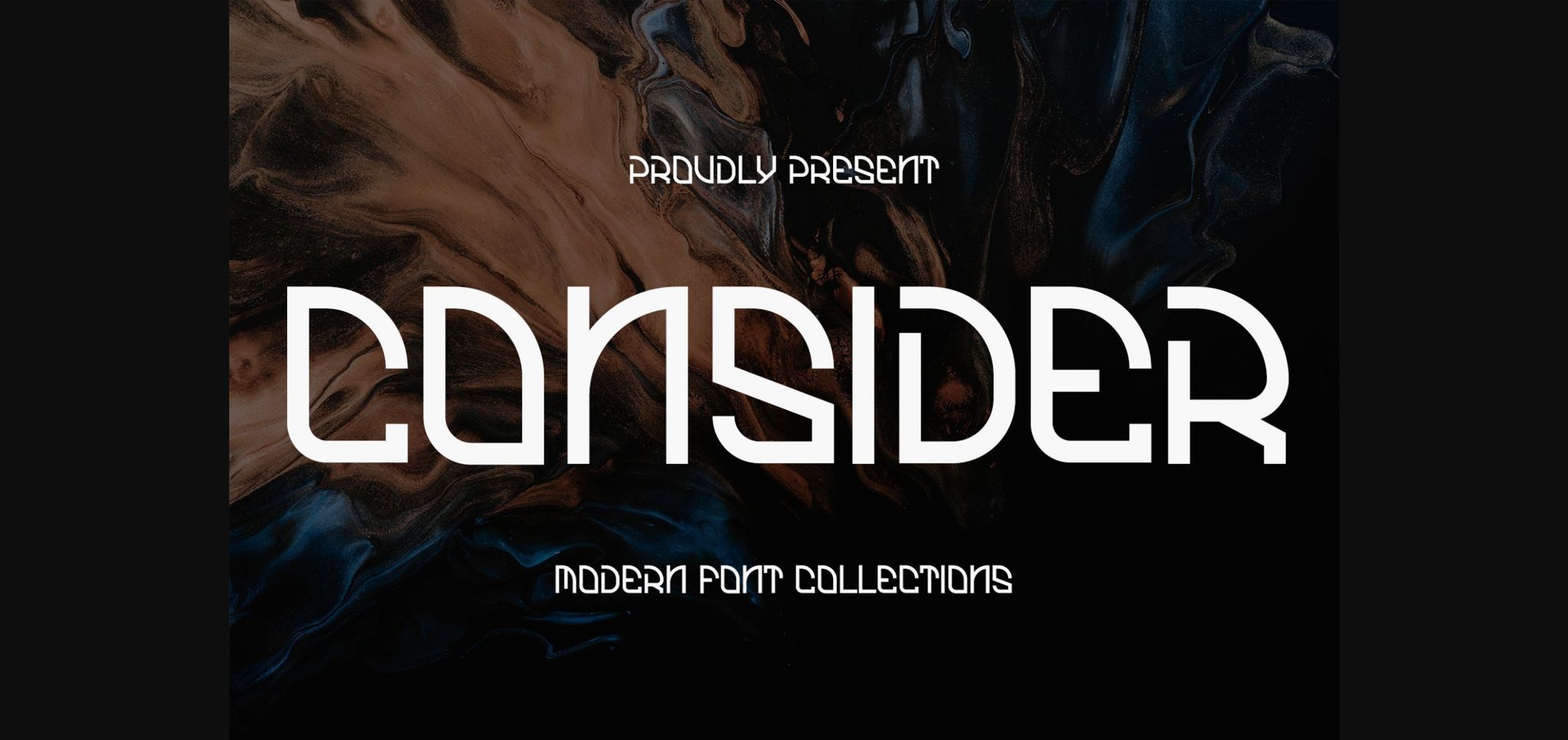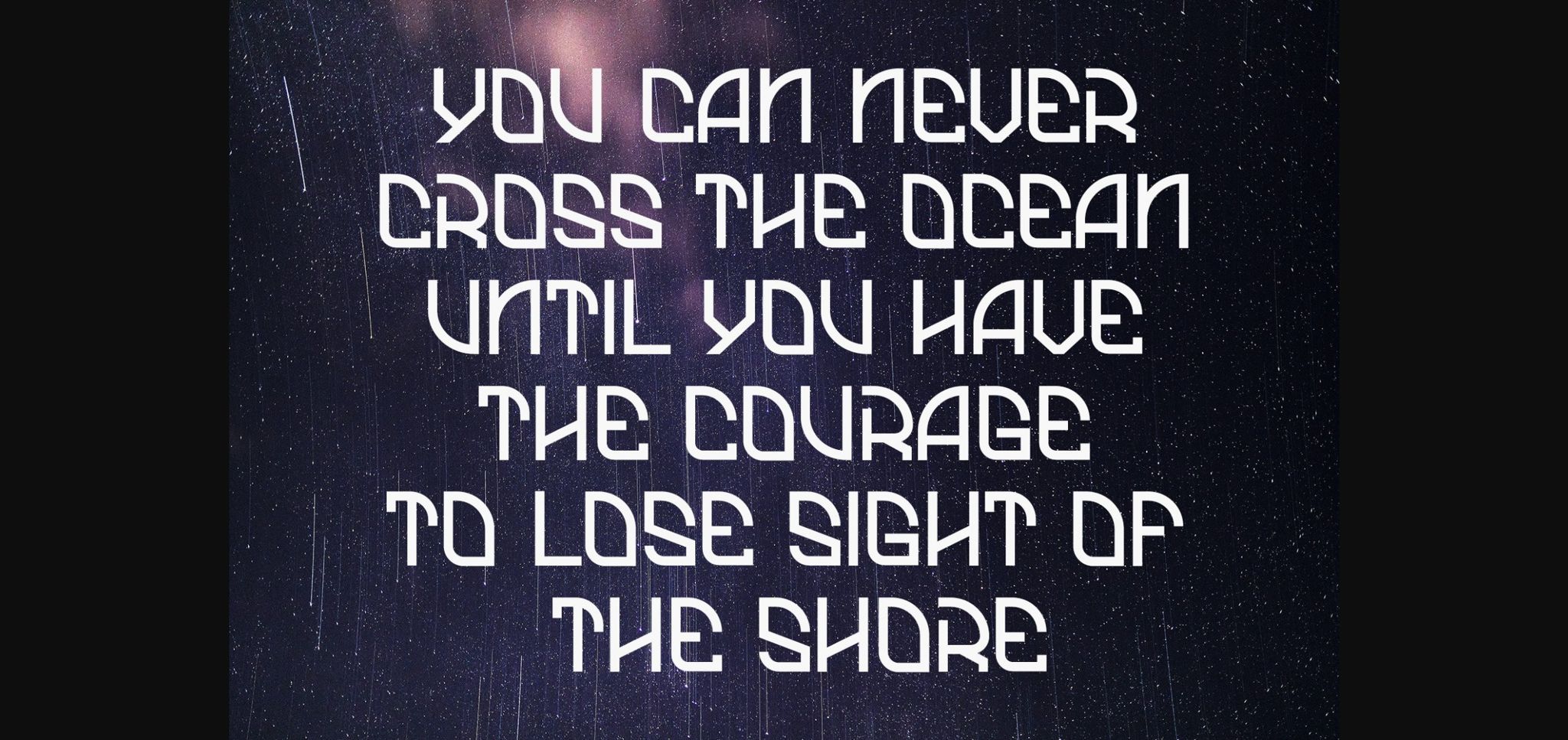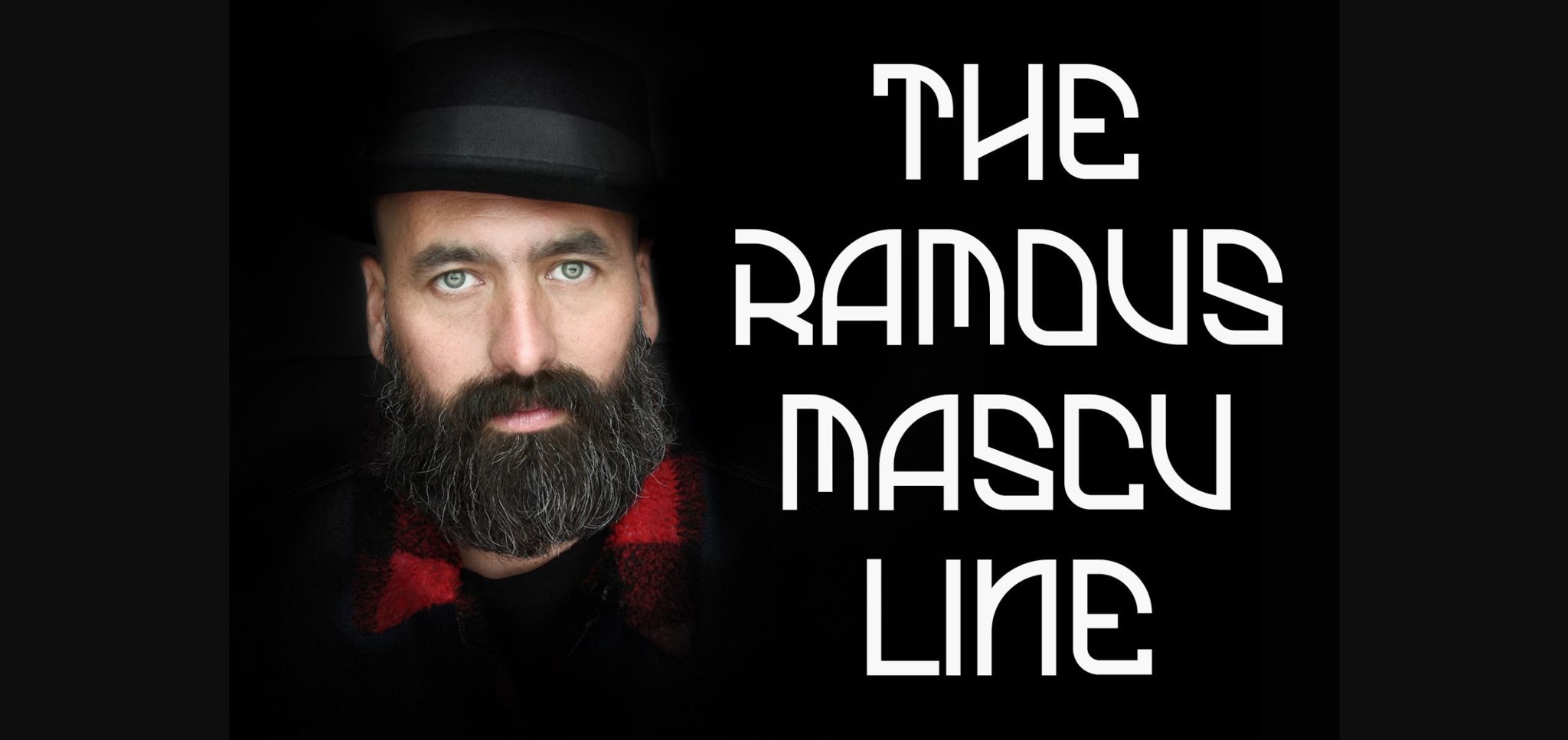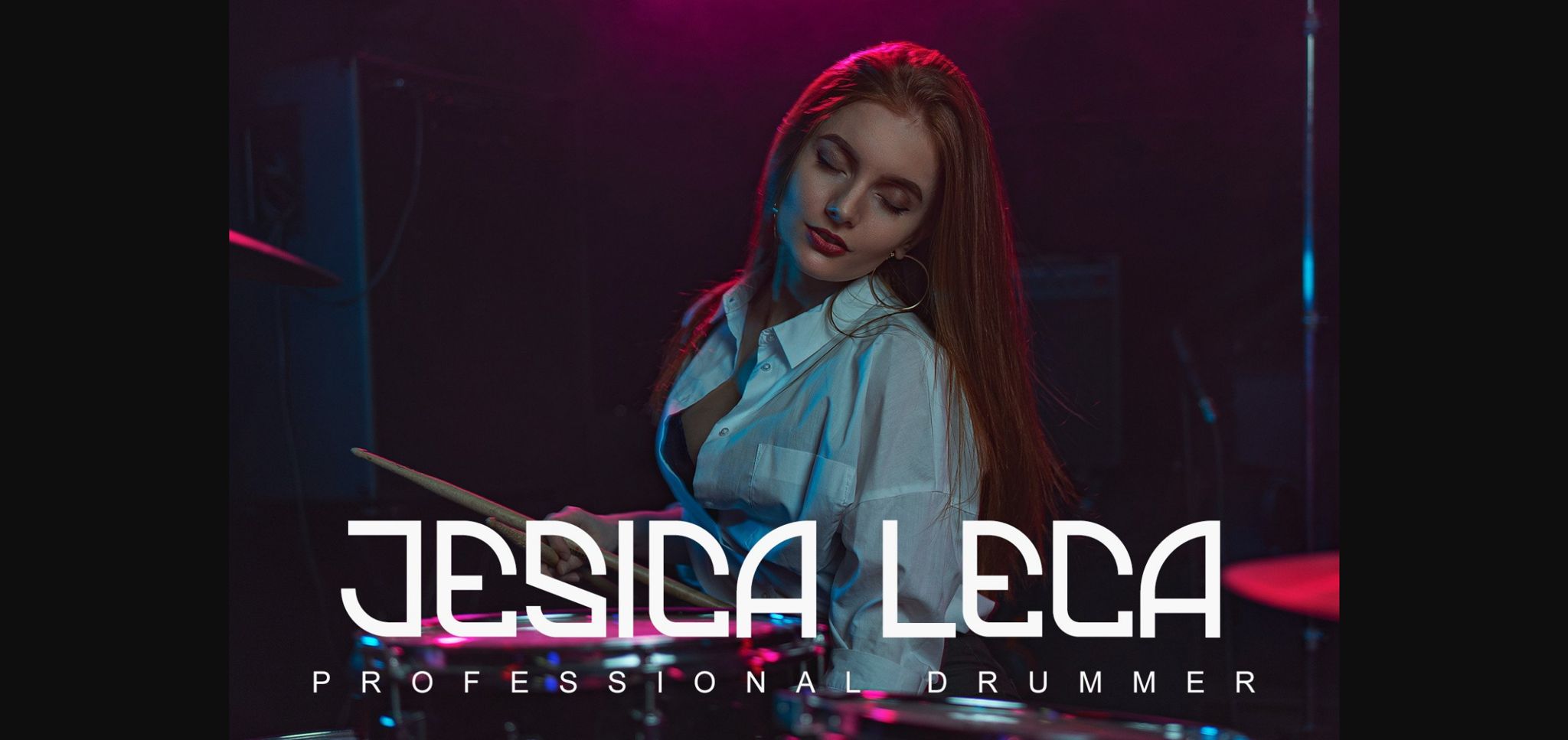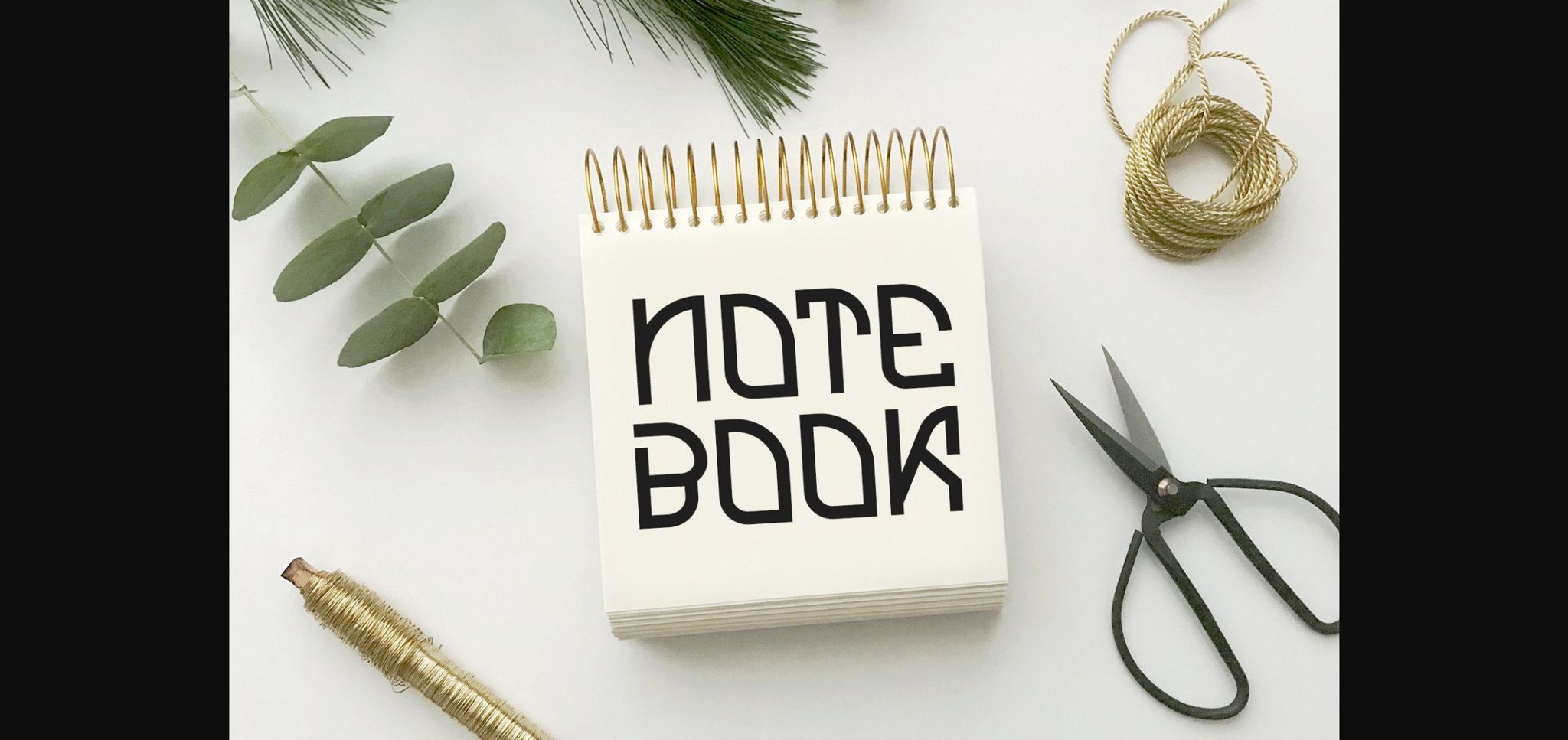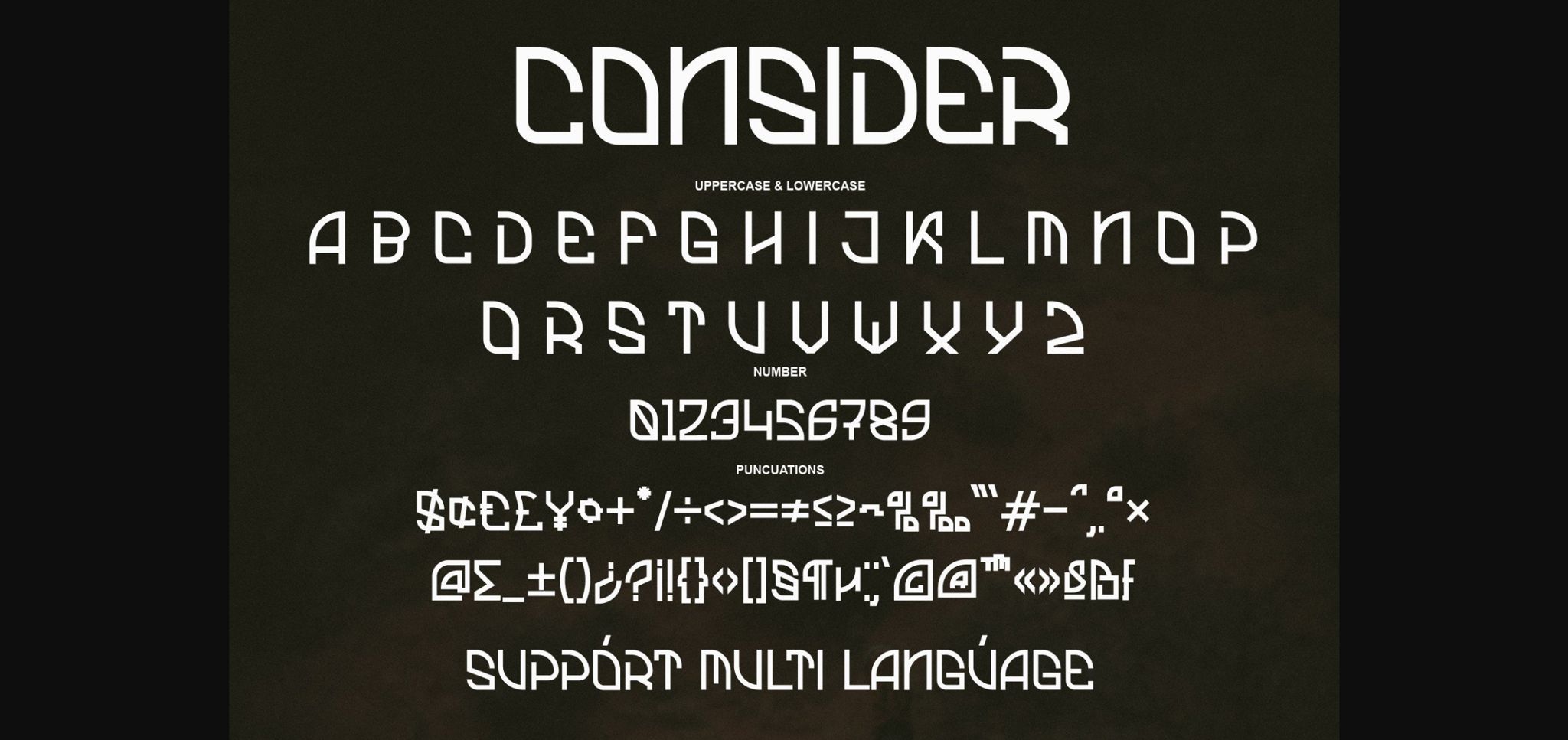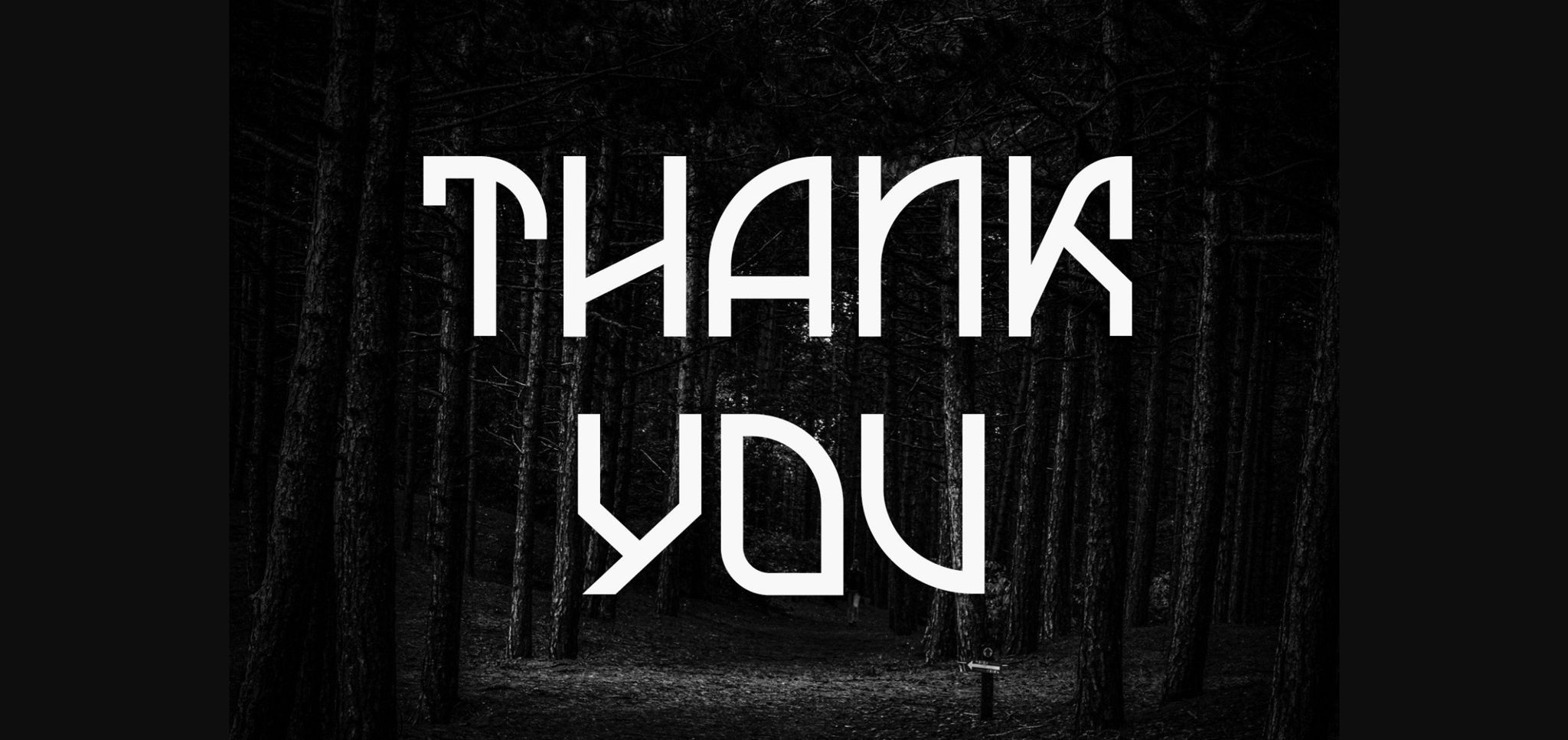
Consider Font
About Consider Font
Consider is a stylish and modern sans serif font, suitable for a wide spectrum of applications. From greeting cards to headlines, branding, and packaging, this font will guarantee a happy touch to each of your creations!